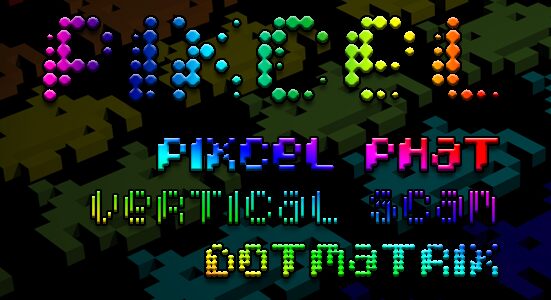
Pixcel Vertical Scan by TracerTong is a free futuristic display font whose letters resemble interrupted barcode signals, with tall vertical strokes, clipped joins, narrow gaps, and uneven density across each character producing a stark machine-read silhouette. Its broken forms make ordinary text look scanned and partially decoded.
Digital graphics are its strongest medium, especially interface title cards, electronic music artwork, and game menus that draw on surveillance screens, data transmission, or malfunctioning hardware. On technology packaging or event branding, the repeated upright bars can become part of the product identity, echoing barcodes and signal readouts rather than serving as neutral lettering.
Pixcel
Vertical Scan
TracerTong: Pixcel Vertical Scan: 2012
Pixcel Vertical Scan